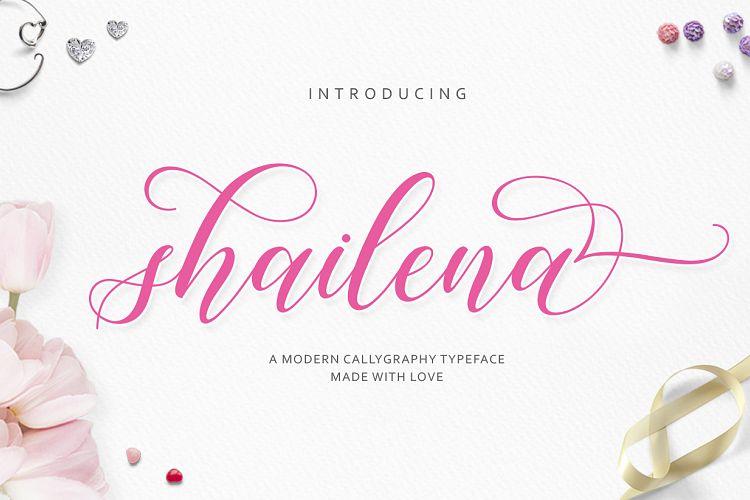
Shailena Script Font
Hello world..!! A modern calligraphy typeface made with love. This font are perfect for all types of your business projects. Introducing Shailena font! Shailena is modern script font, every single letters has been carefully crafted to make your text looks beautiful. With modern script style this font will perfect for many different project, example: invitations, greeting cards, posters, name card, quotes, blog header, branding, logo, fashion, apparel, letter, stationeryand more !